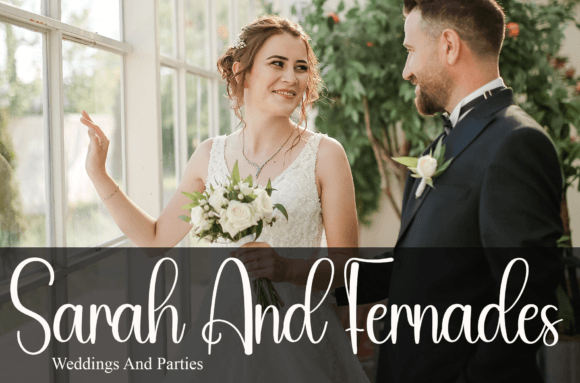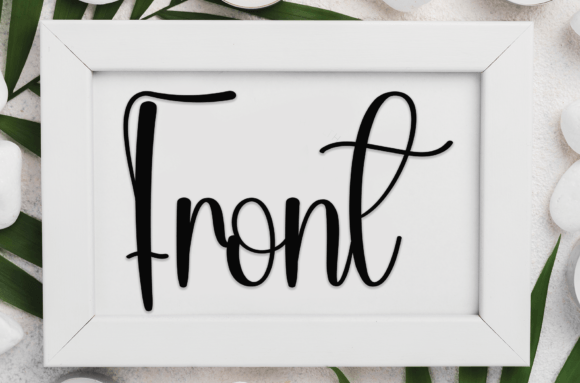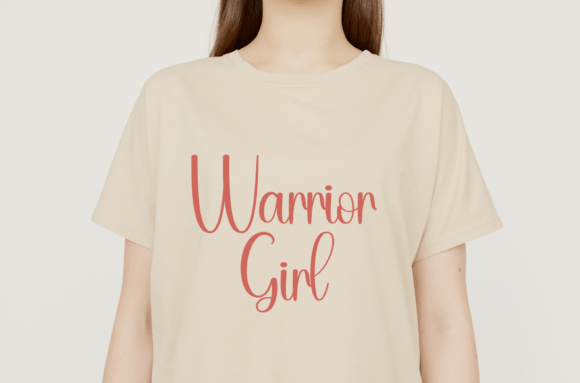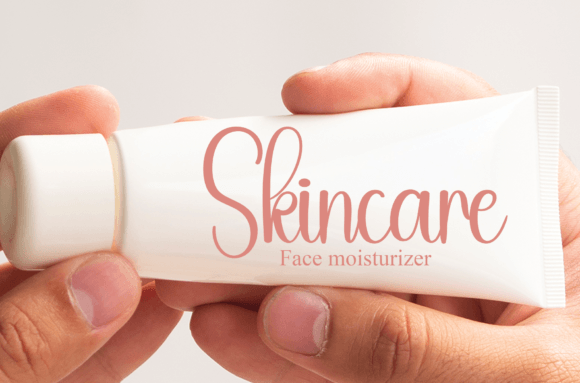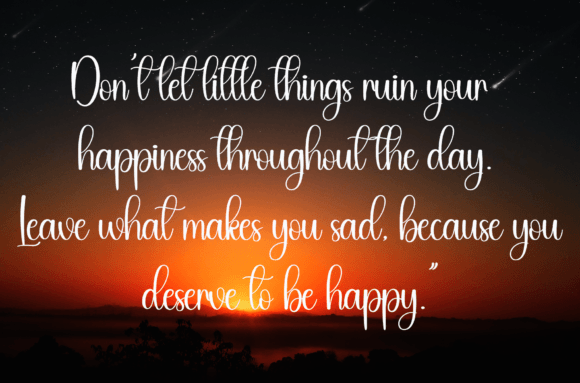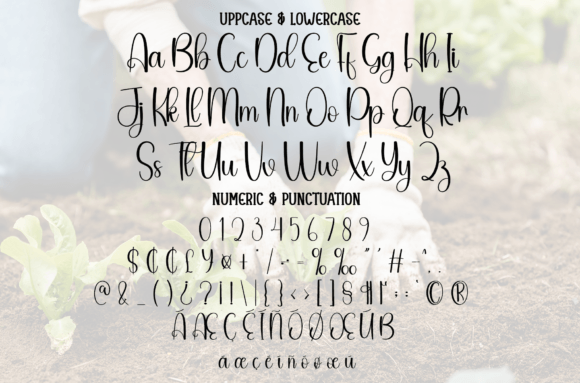
Introducing Farmwork Font: The Sweet and Friendly Handwritten Font for Your Design Needs
Are you a designer or crafter looking for a font that can add a touch of warmth and personality to your designs? Look no further than Farmwork Font, a sweet and friendly handwritten font that’s perfect for a variety of projects. In this article, we’ll take a closer look at Farmwork Font, its features, and how you can use it to elevate your designs.
What is Farmwork Font?
Farmwork Font is a beautiful, handwritten font that’s fresh, neat, and full of character. Its sweet and friendly vibe makes it ideal for designs that require a personal touch. Whether you’re creating wedding invitations, greeting cards, or any other type of design, Farmwork Font is sure to impress.
Key Features of Farmwork Font
- Handwritten style: Farmwork Font has a lovely, handwritten feel that’s perfect for adding a personal touch to your designs.
- Sweet and friendly vibe: This font exudes warmth and friendliness, making it perfect for designs that require a touch of personality.
- Fresh and neat: Farmwork Font is clean and easy to read, making it perfect for body text or headings.
- Versatile: This font is suitable for a wide range of designs, from wedding invitations to social media graphics.
Use Cases for Farmwork Font
Farmwork Font is a versatile font that can be used for a variety of design projects. Here are some use cases to get you started:
- Wedding Invitations: Add a touch of romance and whimsy to your wedding invitations with Farmwork Font.
- Greeting Cards: Create beautiful, personalized greeting cards for special occasions like birthdays, anniversaries, and holidays.
- Social Media Graphics: Use Farmwork Font to create eye-catching social media graphics that showcase your brand’s personality.
- Blog Posts: Add a touch of personality to your blog posts with Farmwork Font, perfect for lifestyle, food, or travel blogs.
Tips for Using Farmwork Font
Here are some tips for getting the most out of Farmwork Font:
- Pair with other fonts: Experiment with pairing Farmwork Font with other fonts to create a unique look.
- Use for headings and body text: Farmwork Font is clean and easy to read, making it perfect for both headings and body text.
- Add a personal touch: Use Farmwork Font to add a personal touch to your designs, such as in illustrations or graphics.
Farmwork Font is a beautiful, handwritten font that’s perfect for designers and crafters looking to add a touch of personality to their designs. With its sweet and friendly vibe, fresh and neat style, and versatility, Farmwork Font is sure to become a go-to font in your design arsenal. So why not give it a try and see how it can elevate your designs?
Whether you’re a seasoned designer or a crafter looking for a unique font, Farmwork Font is a great choice. Its ease of use, flexibility, and charm make it an excellent addition to any design project. So go ahead, get creative, and make your designs shine with Farmwork Font!